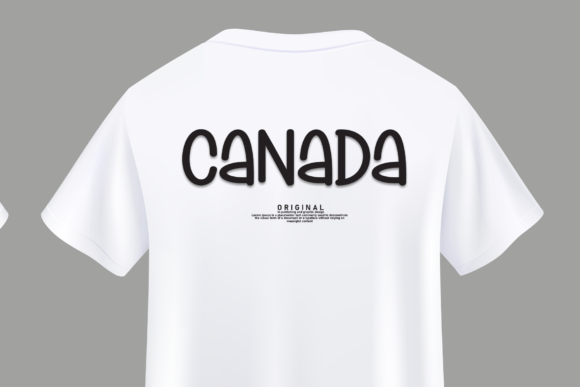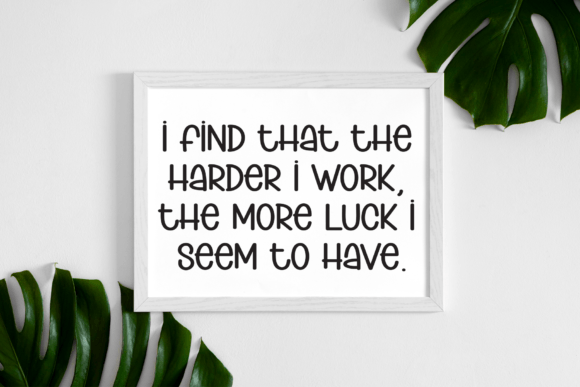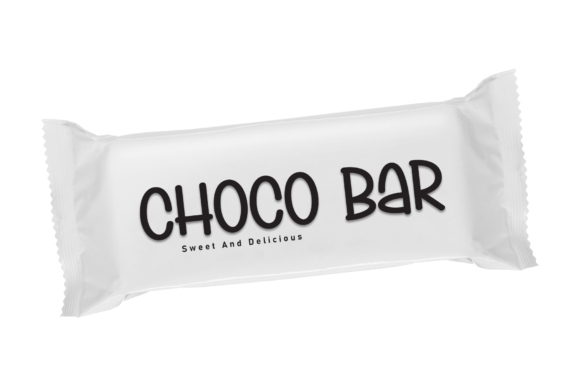
Introduction to Cream Cookies Font
Cream Cookies is a sweet and friendly handwritten font.
Key Features of Cream Cookies Font
Why Choose Cream Cookies Font?
Cream Cookies Font offers exceptional quality and versatility, making it a valuable addition to your design toolkit. Whether you’re creating for personal projects or commercial use, Cream Cookies Font delivers professional results.